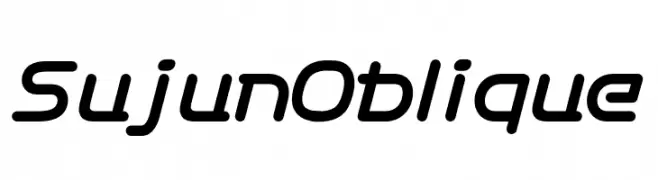
• Youyu Regular
An ornate and decorative font with swirling embellishments and artistic flair.
• Sonshin Bold
A bold, angular font with a strong geometric presence.
• Zenteikei Regular
A playful, high-contrast font with an artistic and hand-drawn appearance.
• Sujun Oblique
A sleek, modern oblique font with smooth, rounded edges and a dynamic appearance.
• Choushin Bold
A bold, geometric font with sharp, angular cuts for a futuristic look.
• Setsuei Oblique
A bold, playful oblique font with rounded, inflated characters and moderate contrast.
• Teitokuson Bold
A bold, geometric font with sharp angles and a futuristic style.
• Andozen Regular
A bold, pixelated font with a retro digital aesthetic.
• Kouhotan Bold
A bold, playful font with rounded, bulbous characters perfect for creative projects.
• Kintaiken Black
A bold, angular font with a futuristic and dynamic style.